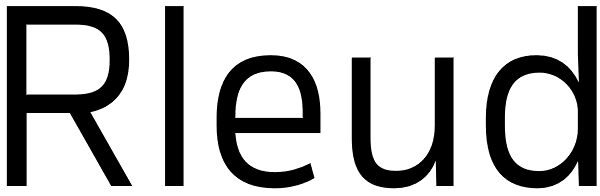
Rleud
Finally in 2014 “RLEUD” [Pronounced Loyd] is now finished and ready for your design. It was started in 2012 by using DIN as inspiration with the mood of industrial design and combination of humanist style from Dax. The idea is to make this a...